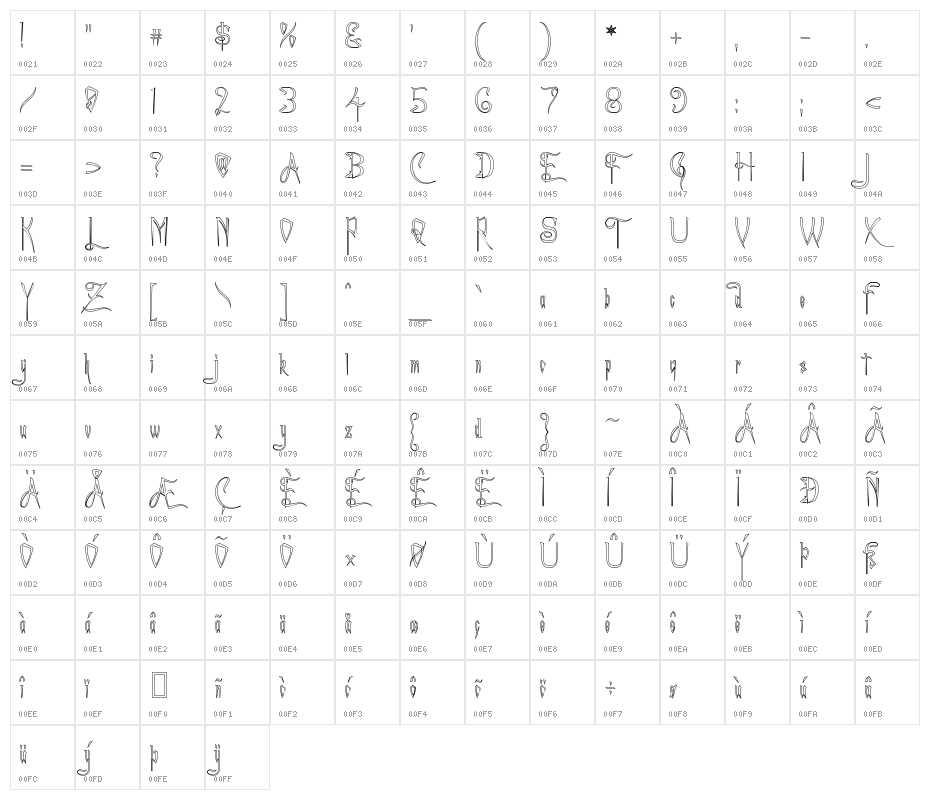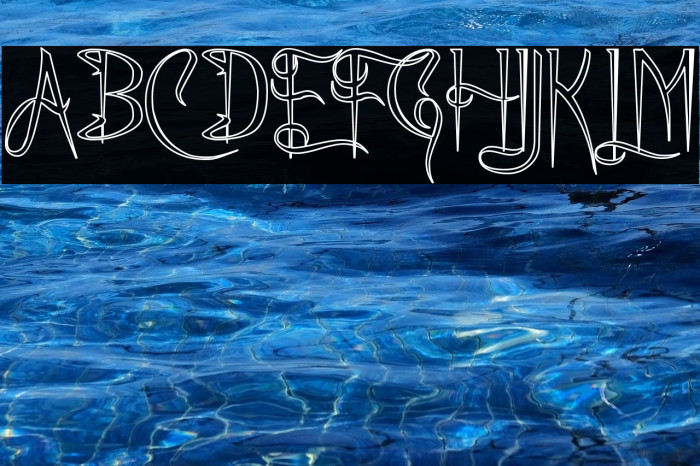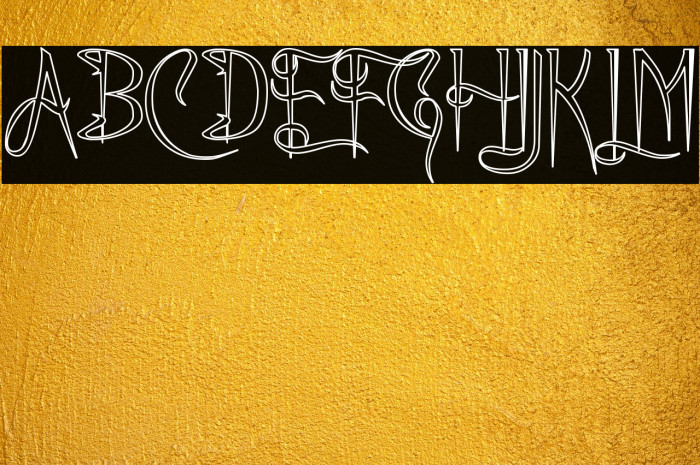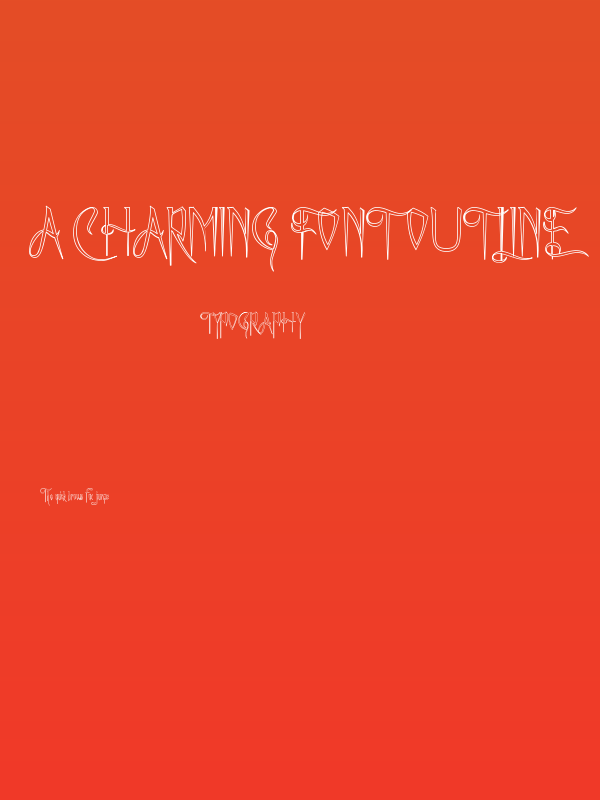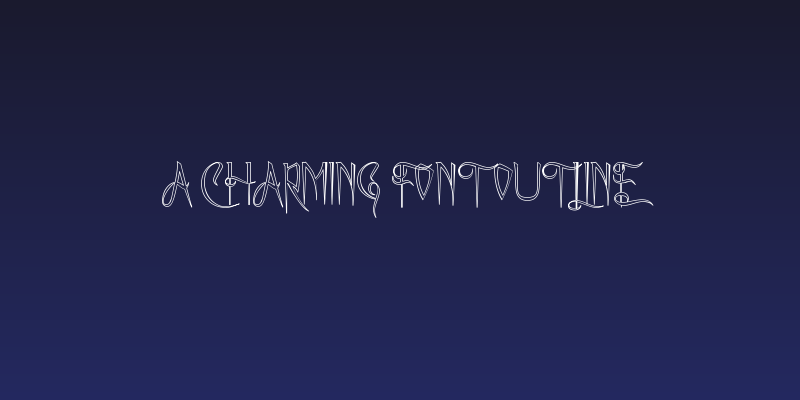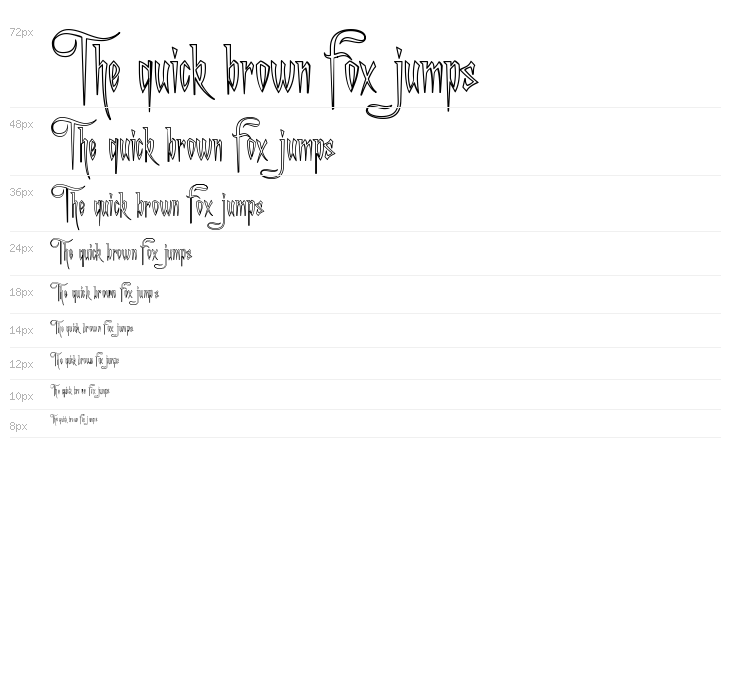
A Charming Font Outline Font
A Charming Font Outline Description
This font features an elaborate and decorative style, characterized by its intricate outlines and artistic flair. The uppercase letters exhibit a unique blend of curves and sharp angles, creating a dynamic and eye-catching appearance. The lowercase letters maintain this artistic theme, with some characters featuring elongated strokes and whimsical loops. Numbers and special characters are equally stylized, adding to the font's overall charm. The font's outline design gives it a light and airy feel, making it suitable for creative and expressive projects.
| Use Case | Headlines, Logos, Artistic projects |
| Proposed Projects | Ideal for invitations, posters, artistic branding, and creative design projects. |